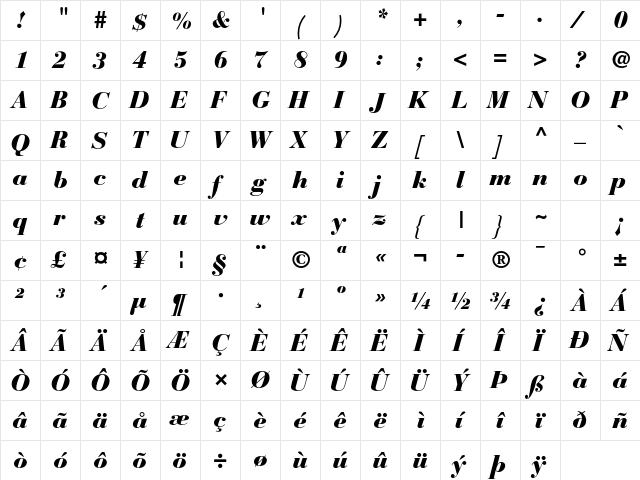
Bauer Bodoni Std 2 Black Italic
| Designer | Heinrich Jost, Louis Hڬl |
Design Context for Bauer Bodoni Std 2 Typeface
Bauer Bodoni Std 2 offers clean, dependable letterforms without strong stylistic allegiance, making it a practical choice for designers who need flexibility. Its italic angle brings a sense of urgency and motion to the letterforms.
Pro Tip: Use Bauer Bodoni Std 2 for emphasis, pull quotes, and subheadings where its slanted energy can add rhythm to the layout.